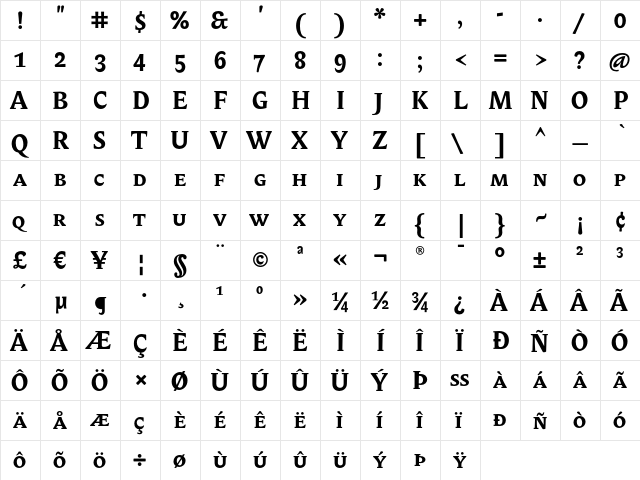
Biblon ITC SmallCaps Bold
Design Context for Biblon ITC SmallCaps Typeface
Biblon ITC SmallCaps takes a measured approach to typography — its balanced proportions and neutral character make it a reliable workhorse for both digital and print work. The heavy weight commands attention and anchors typographic hierarchies.